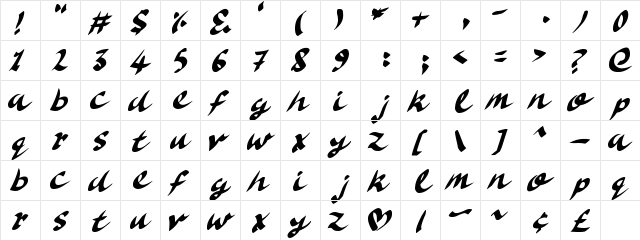
Delicious Doom Regular Font Preview
Delicious Doom Regular
Delicious Doom Regular Font Details
Design Context for Delicious Doom Typeface
Delicious Doom is a composed and adaptable typeface that performs quietly and consistently across a wide range of design contexts.
Pro Tip: Pair Delicious Doom with a font of contrasting weight or personality to build a more expressive typographic hierarchy.